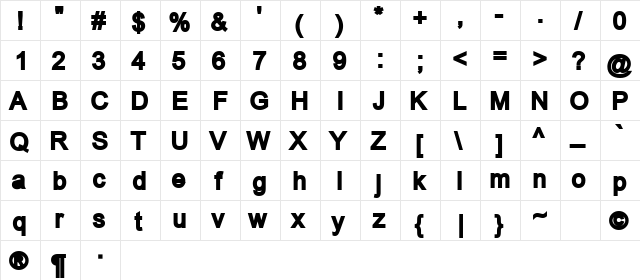
UpStartBold Regular
Design Context for UpStartBold Typeface
UpStartBold offers clean, dependable letterforms without strong stylistic allegiance, making it a practical choice for designers who need flexibility. The heavy weight commands attention and anchors typographic hierarchies.